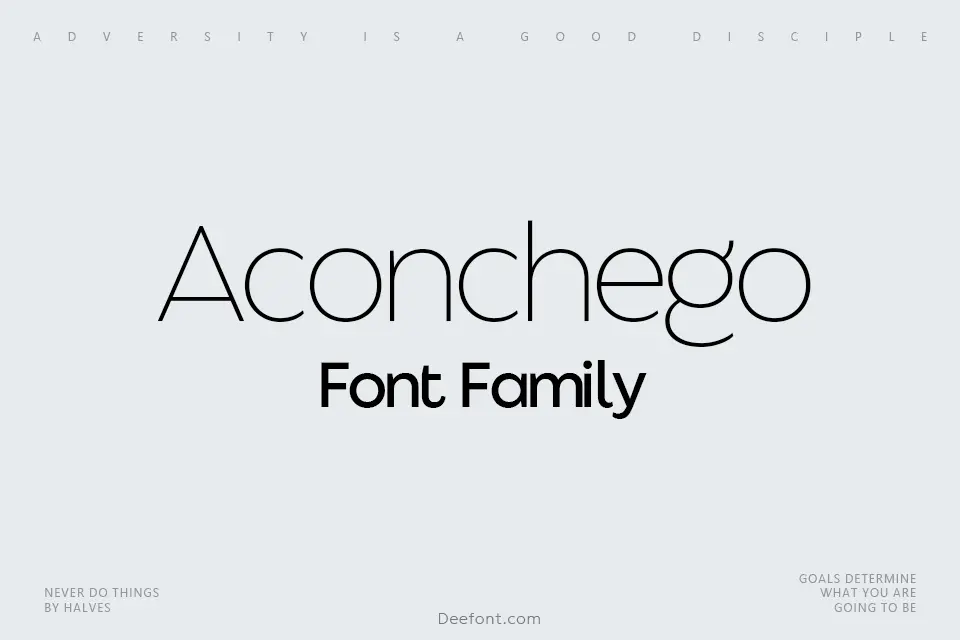
Aconchego Font Family
Aconchego Font Family is a geometric sans-serif typeface designed to evoke a sense of comfort and coziness. It combines geometric precision with gentle expressiveness, offering a unique blend of modernity and retro tones. Aconchego is versatile and functional, suitable for various design applications such as branding, advertising, and digital media. The font family includes 9 weights and 2 styles, providing a wide range of creative possibilities. Its clean and sophisticated design makes it ideal for both text and display purposes, allowing designers to infuse their projects with warmth and contemporary gentleness.